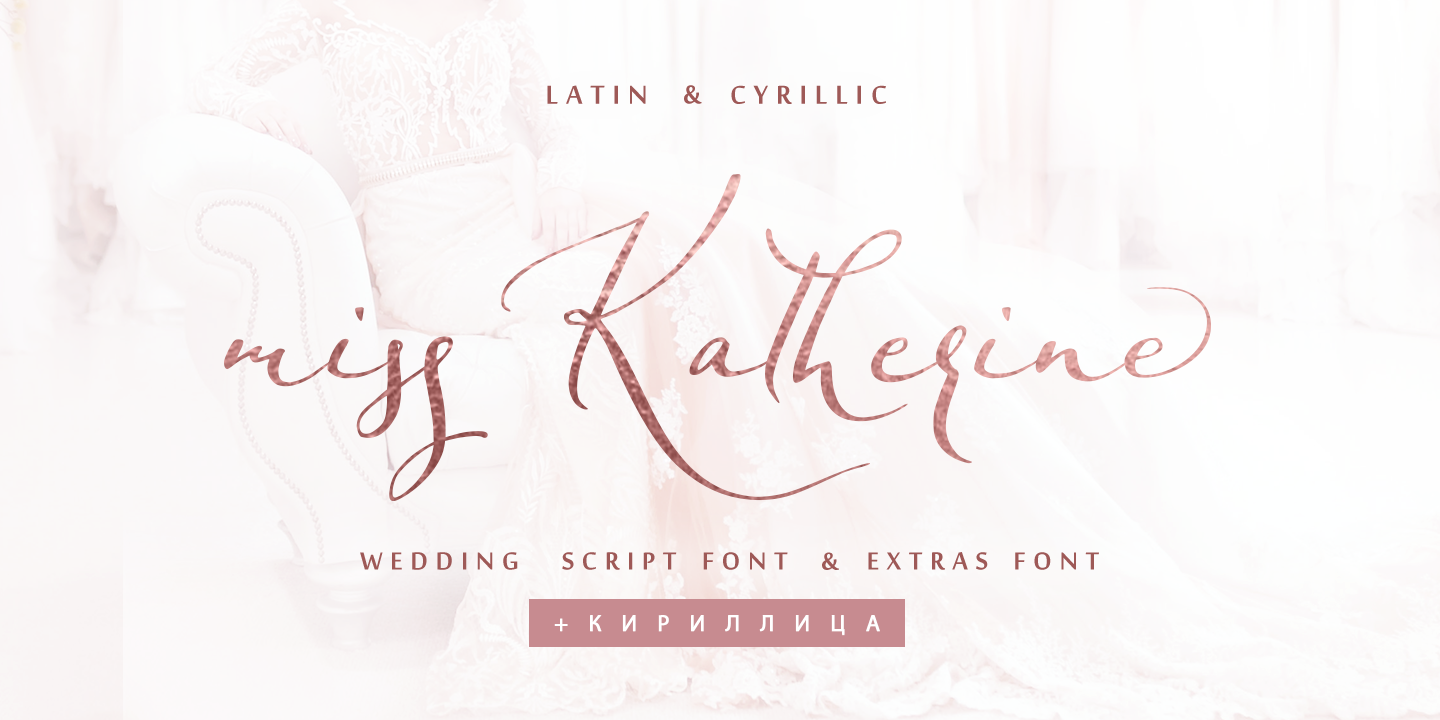
Miss Katherine Cyrillic Font is perfect for Eastern European cultural projects, Russian heritage materials, Slavic language publications, Orthodox religious texts, classical literature designs, cultural exchange programs, multilingual communications, and authentic Cyrillic typography applications.
This elegant script typeface is exciting because it honors the rich literary tradition and cultural heritage of Cyrillic alphabets through graceful letterforms that capture the sophistication and artistic beauty of Eastern European calligraphic traditions.
The Miss Katherine Cyrillic Font family includes regular and ornamental weights with Cyrillic alternates, Eastern European decorative elements, and Slavic cultural flourishes that enhance the authentic regional atmosphere of any Cyrillic-focused design project.
Elegant and culturally rich, Miss Katherine Cyrillic Font Free Download brings the sophisticated beauty and literary heritage of Cyrillic script to contemporary typography through respectful cultural interpretation. This distinguished font embodies the intellectual tradition and artistic refinement that defines Eastern European literary culture, making it invaluable for educational institutions and cultural organizations celebrating Slavic heritage. Its graceful character reflects the centuries of literary achievement and scholarly tradition that produced some of the world's greatest literature and philosophical works, resonating with audiences who appreciate the profound contributions of Cyrillic cultures to world civilization. Perfect for universities and cultural centers, this font ensures your message carries the cultural authenticity and scholarly dignity that Eastern European subjects deserve while honoring the literary traditions that continue to enrich global culture. Whether used for Russian literature courses or Slavic cultural festivals, Miss Katherine Cyrillic Font Free Download delivers the Cyrillic authenticity and cultural sensitivity essential for meaningful representation of Eastern European heritage and the literary traditions that preserve the wisdom and beauty of Slavic civilization.